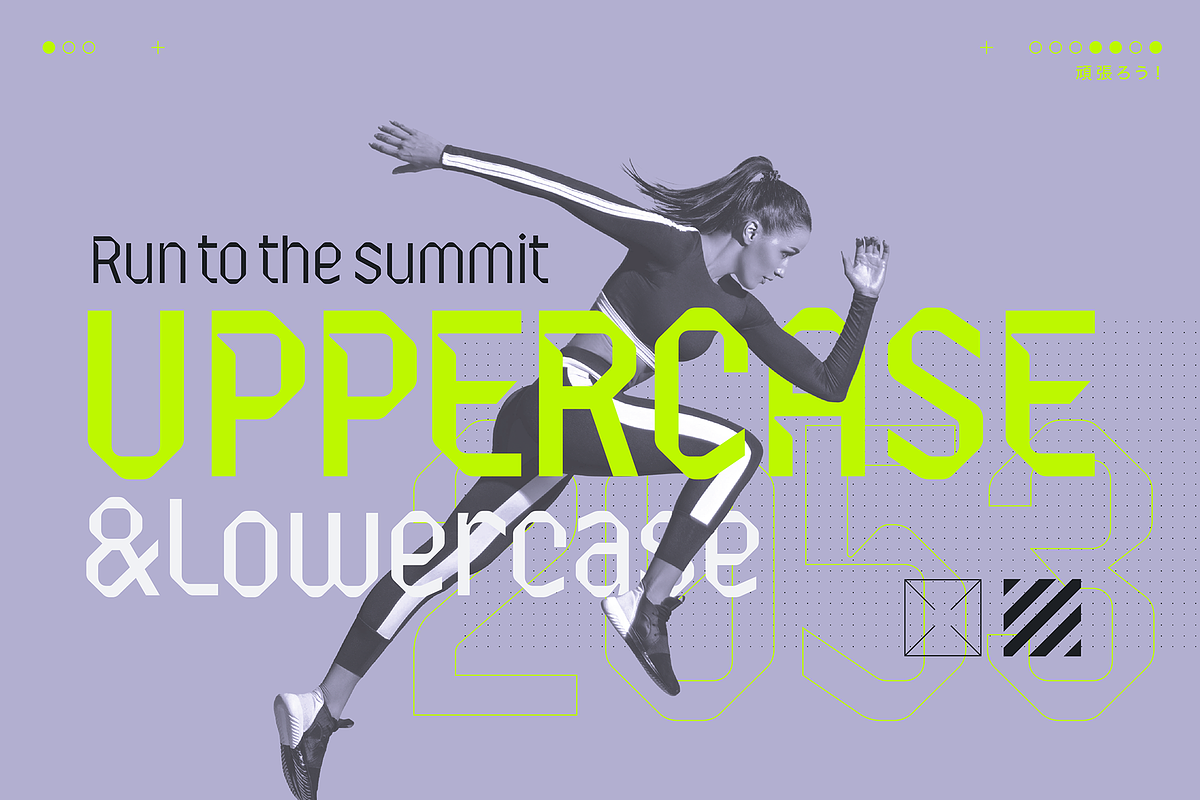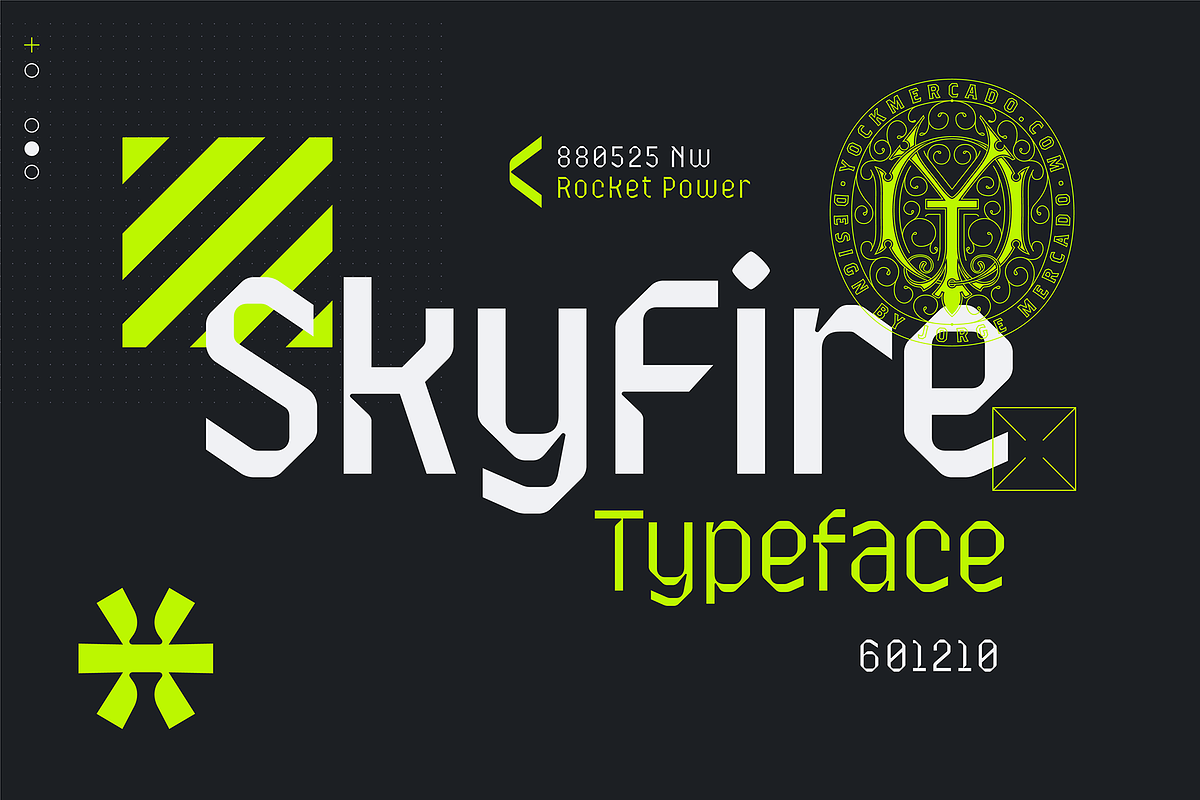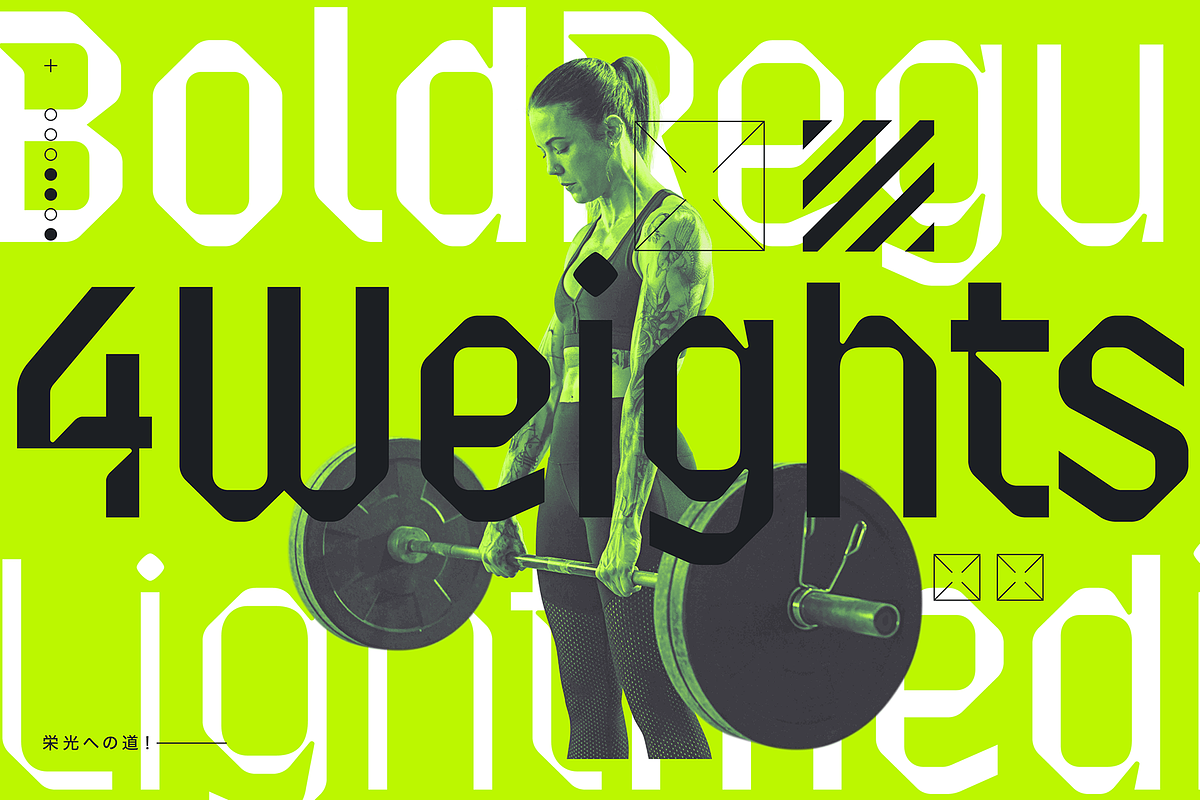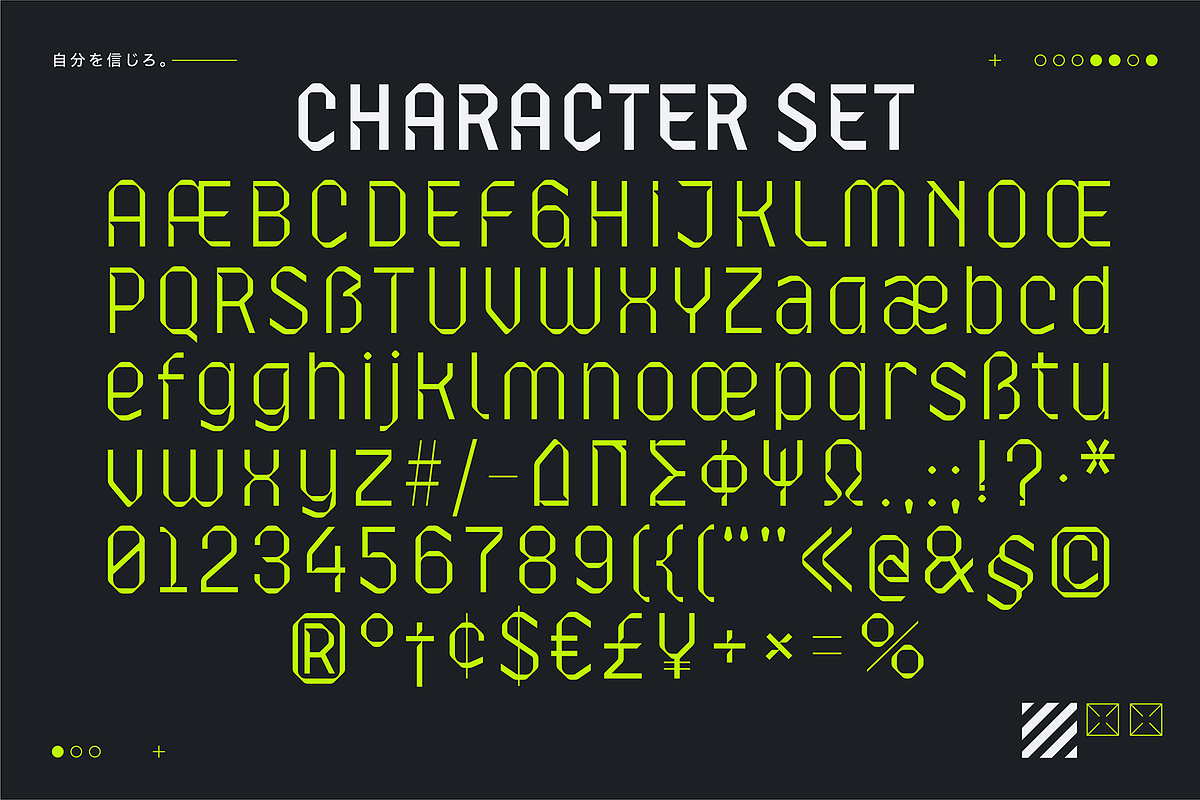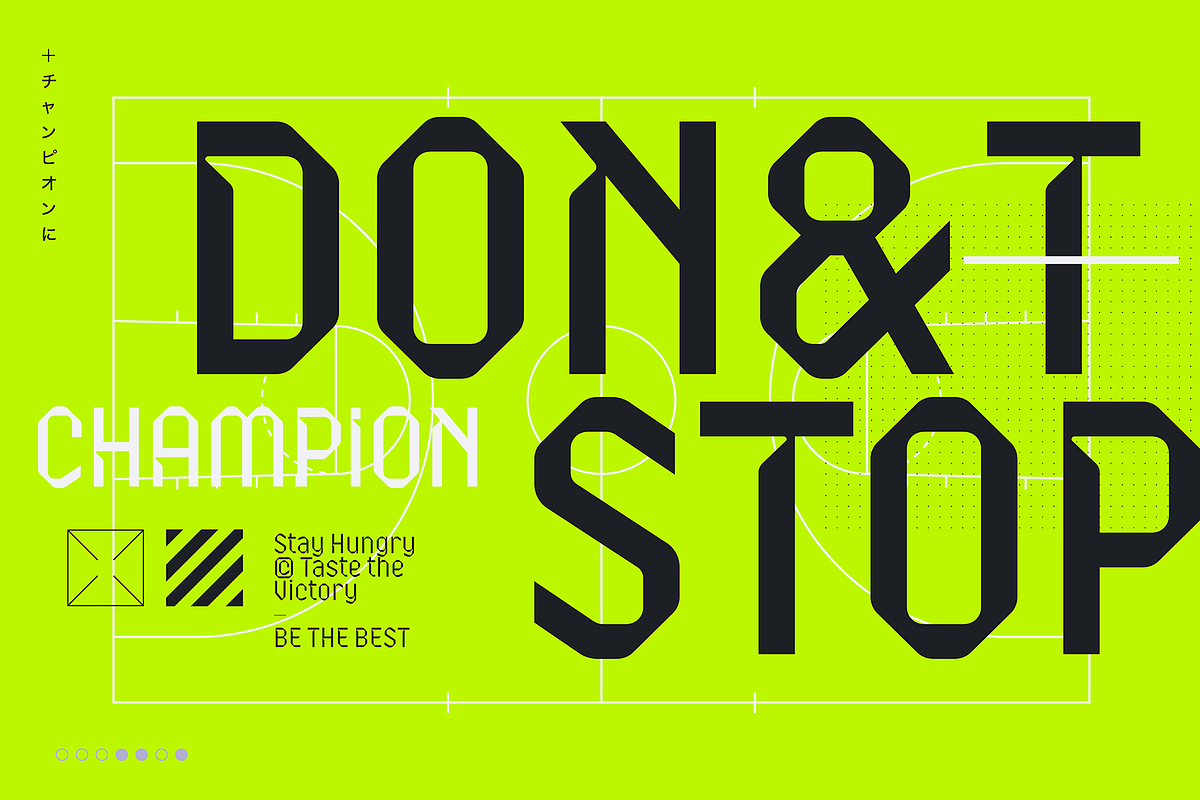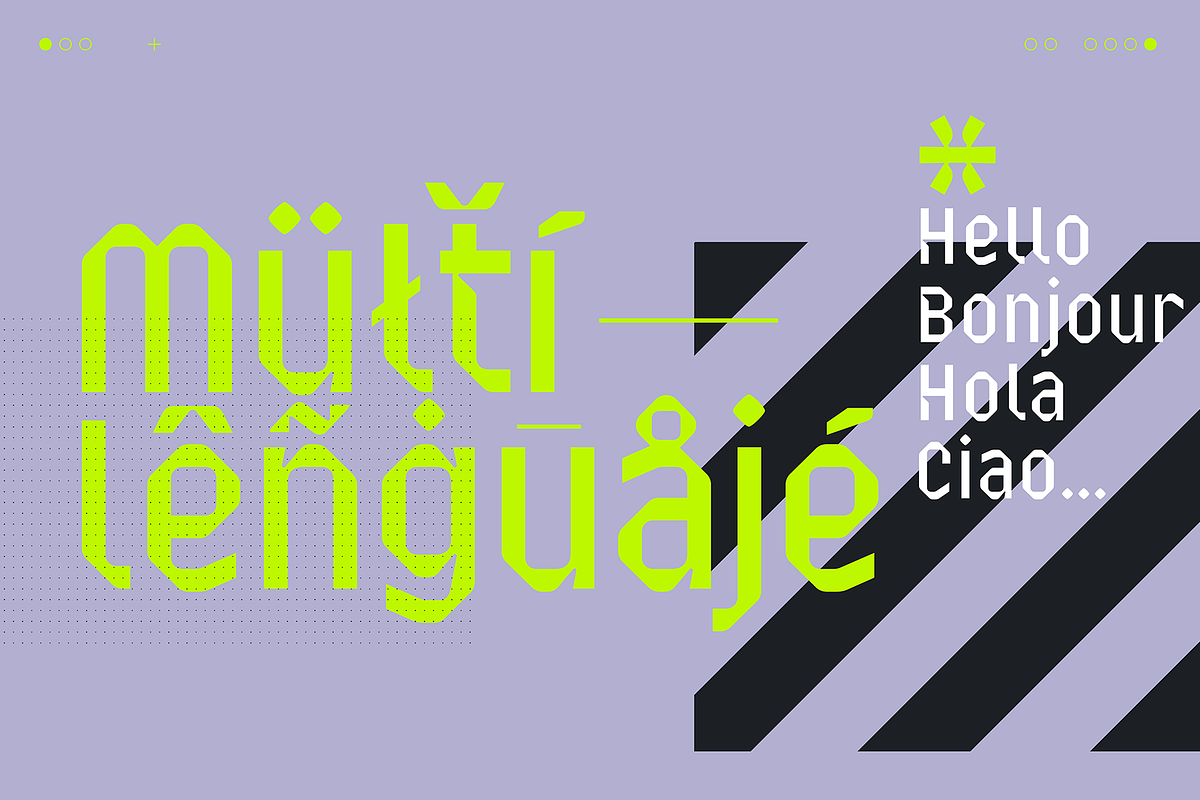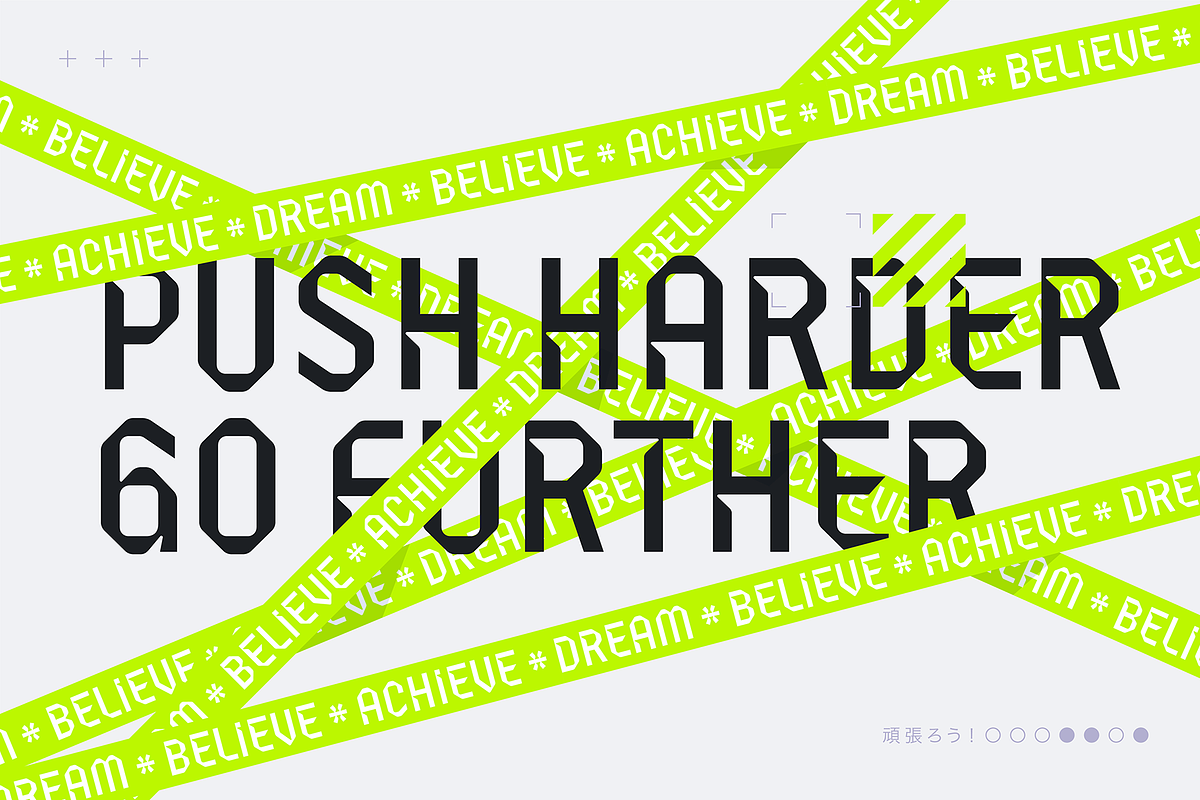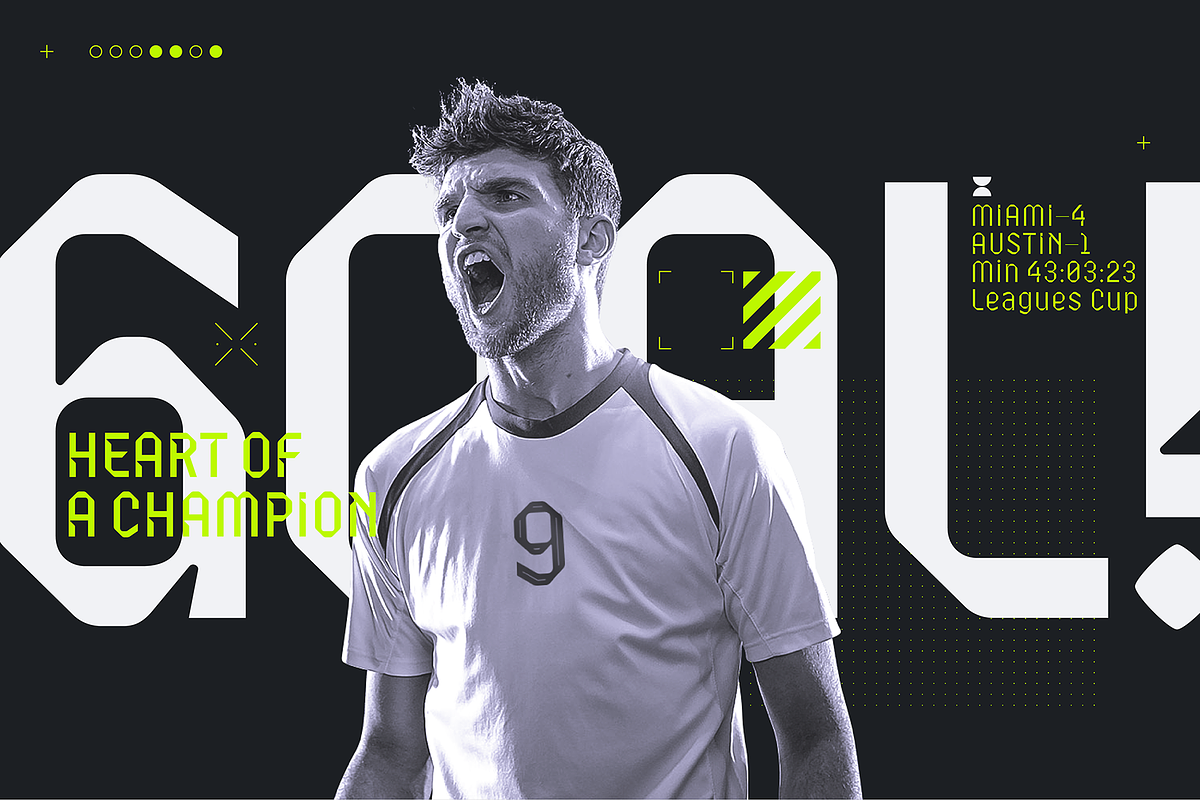
SkyFire Modern Variable Typeface
Skyfire is a Sans Serif font embodying the spirit of the future. Inspired by digital interfaces, spaceships, and distant galaxies, its geometric shapes evoke a sense of cosmic adventure and technological progress.
With a cutting-edge and elegant design, Skyfire becomes the perfect ally for branding and tech projects, promising a tomorrow full of possibilities. Its aeronautical and futuristic aesthetics make it ideal for space travel-related projects, immersing viewers in a universe of wonders and discoveries.
In the sports arena, Skyfire stands out for its connotation of strength and motion, conveying a feeling of dynamism and modernity. It empowers sports brands to reach new heights, projecting an image of challenge and triumph.
With Skyfire, each stroke becomes a cosmic journey, where letters intertwine with imagination, and design merges with the future. This font serves as a guiding light, leading bold projects to conquer new horizons while standing as an innovative beacon in the vast typographic universe.